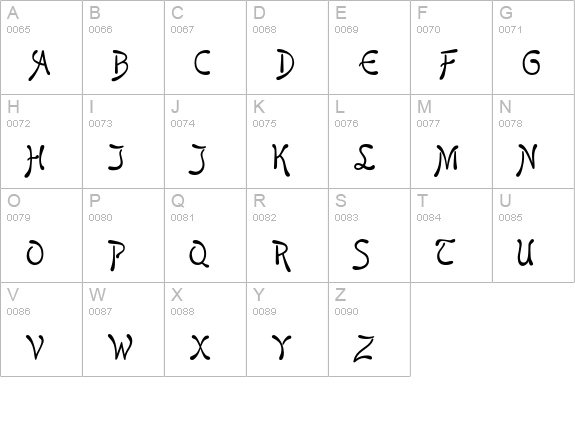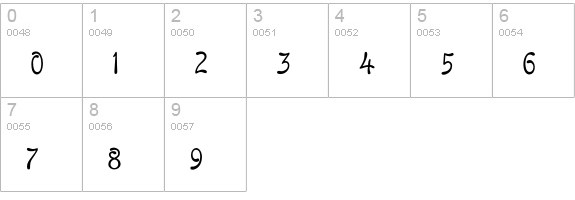
Boomerang Font Details
Boomerang font is a modern and stylish typeface that exudes elegance and sophistication. Its sleek lines and unique curves make it perfect for a variety of design projects, from branding to advertising to social media graphics. The versatility of Boomerang font allows it to be used in both digital and print formats, making it a must-have for any designer looking to make a statement. And the best part? Boomerang font is free to download at FontsMarket.com! With just a few clicks, you can add this stunning typeface to your collection and start creating beautiful designs that are sure to stand out. Don't miss out on this opportunity to elevate your work with the timeless beauty of Boomerang font. Download it today and see the difference it can make in your projects.